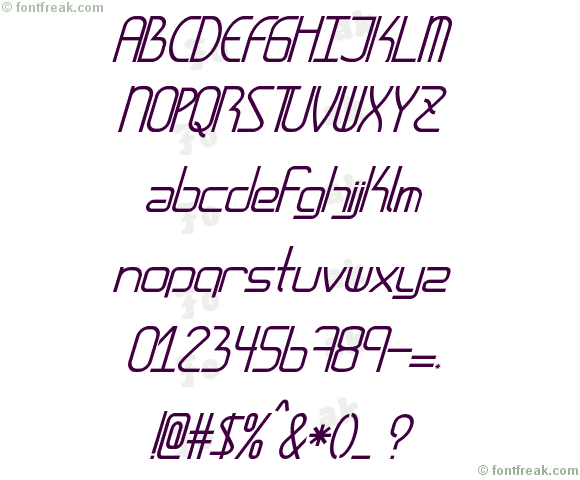
AmplitudesItalic by Xerographer Fonts is a striking display typeface that beautifully merges contemporary design with classic influences. As an italicized font, it offers a distinctive flair that sets it apart in the typographic landscape. The strokes exhibit a medium weight with a smooth contrast that enhances readability while maintaining a stylish appearance. The spacing is well-considered, ensuring that each character flows seamlessly into the next, making it perfect for various creative applications.
This font excels in several specific use cases. Its dynamic style makes it an excellent choice for movie posters, where a touch of sophistication and drama is essential. Additionally, it works wonderfully for branding in restaurants, providing a modern yet approachable feel that can captivate potential customers. Wedding invitations also benefit from the elegant curves and italicized charm of AmplitudesItalic, adding a personal touch to special occasions. Content creators will find it suitable for website headers and social media graphics, enhancing the visual appeal of their projects.
Targeting graphic designers, small business owners, and content creators, AmplitudesItalic offers versatility and character. Its unique design allows users to express creativity while ensuring that their message is communicated effectively. The font's free license makes it accessible to a wide range of users, encouraging experimentation and innovation without the constraints of cost.
What truly sets the AmplitudesItalic font apart is its ability to combine style and functionality seamlessly. The font stands out not only for its aesthetic appeal but also for its adaptability across different media and formats. For anyone seeking a fresh and engaging typeface, the AmplitudesItalic font free download is an opportunity not to be missed.